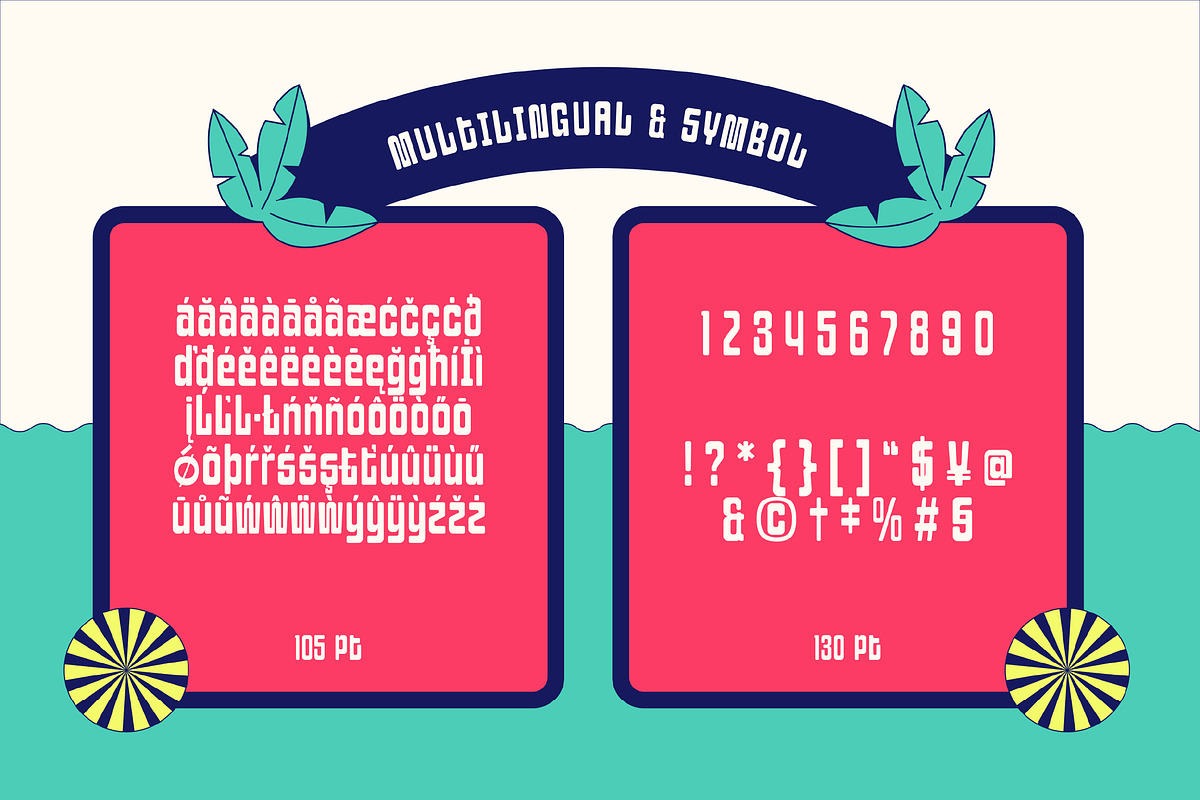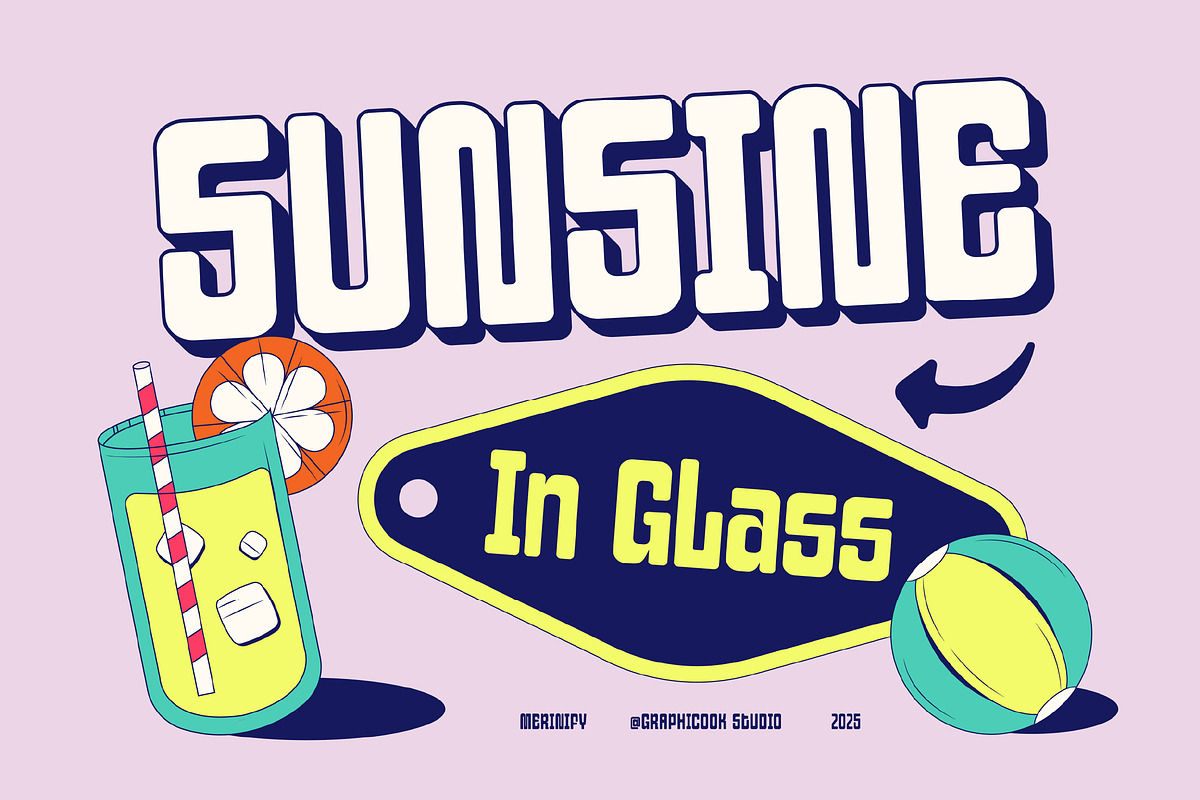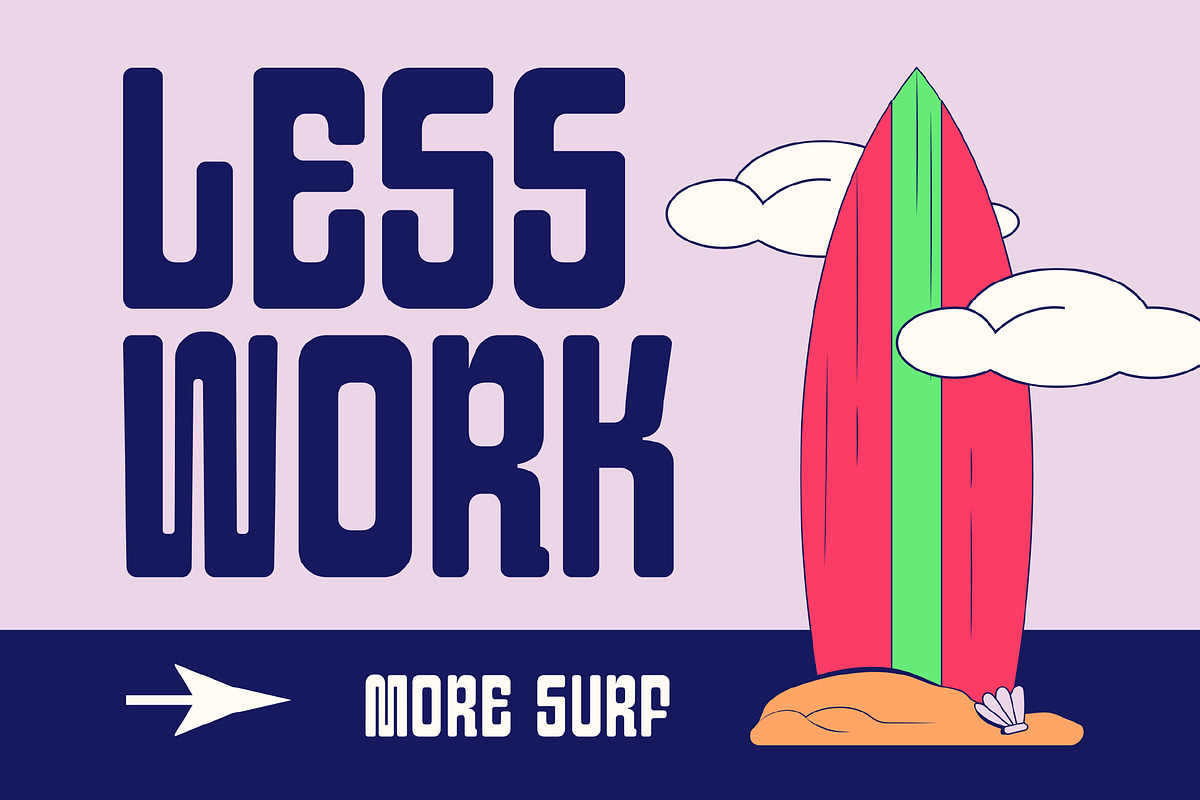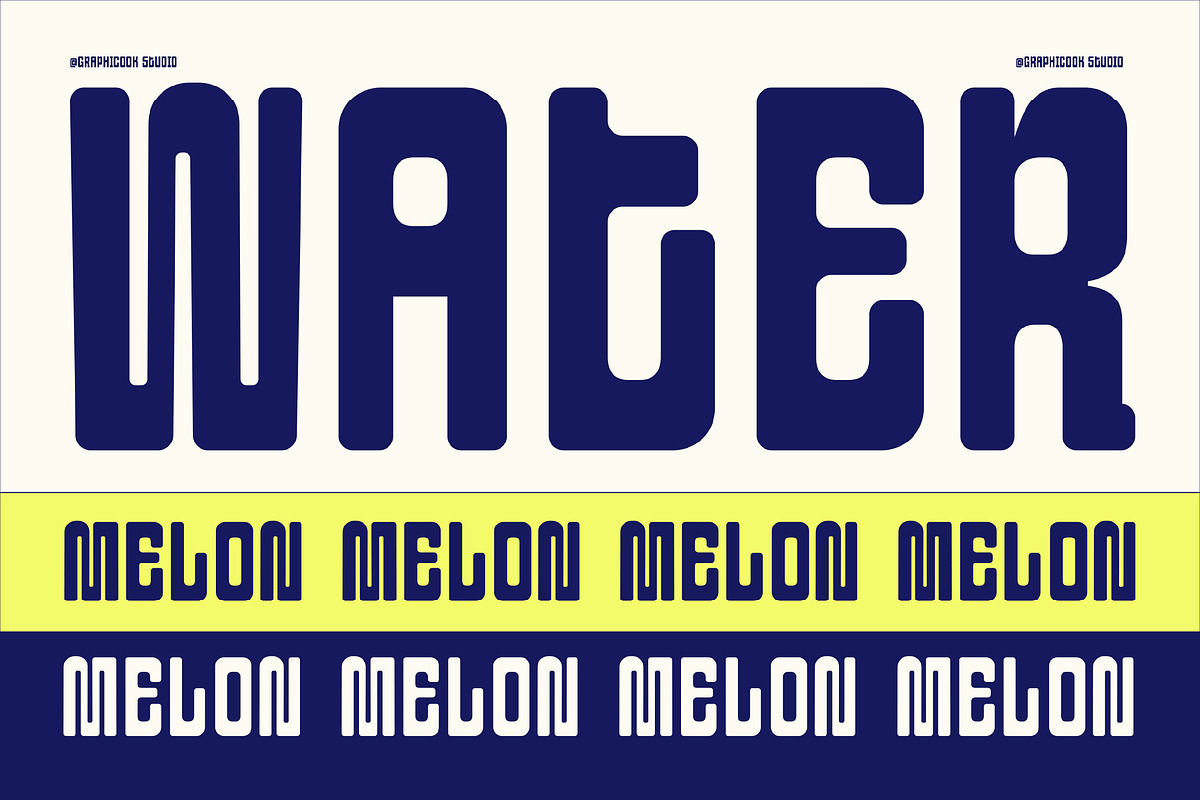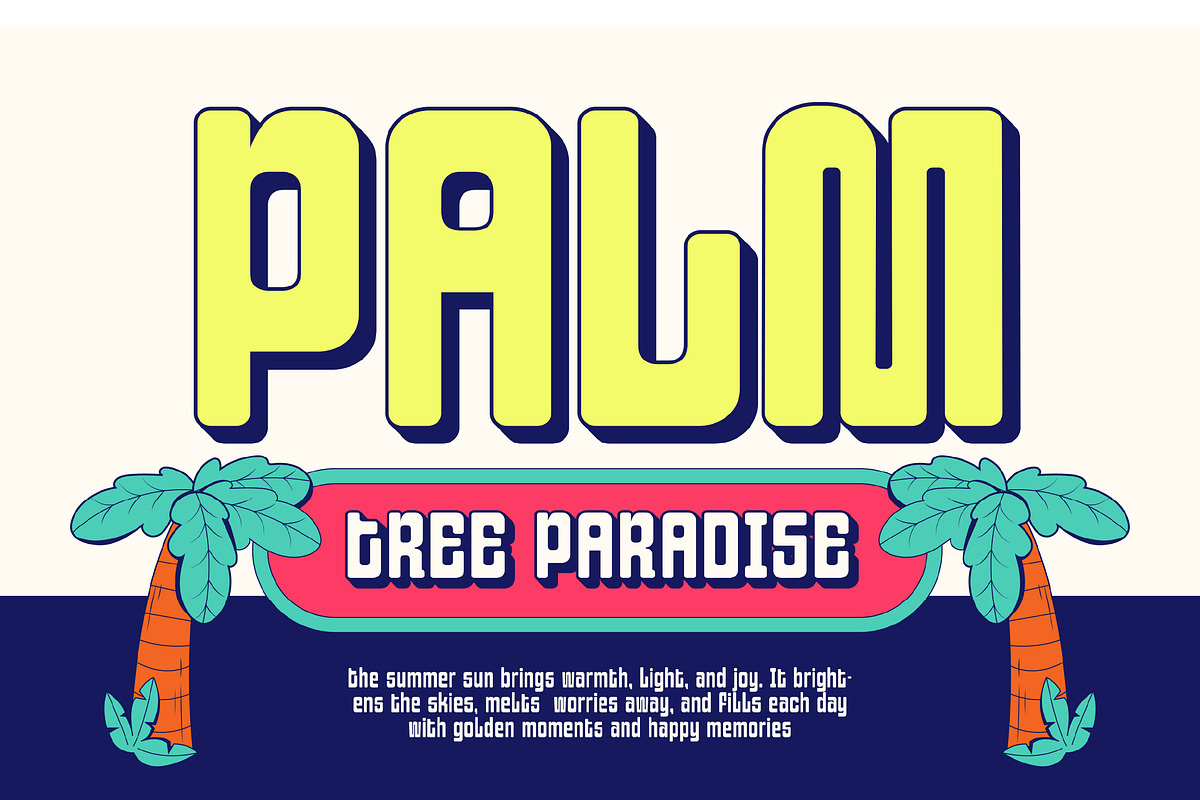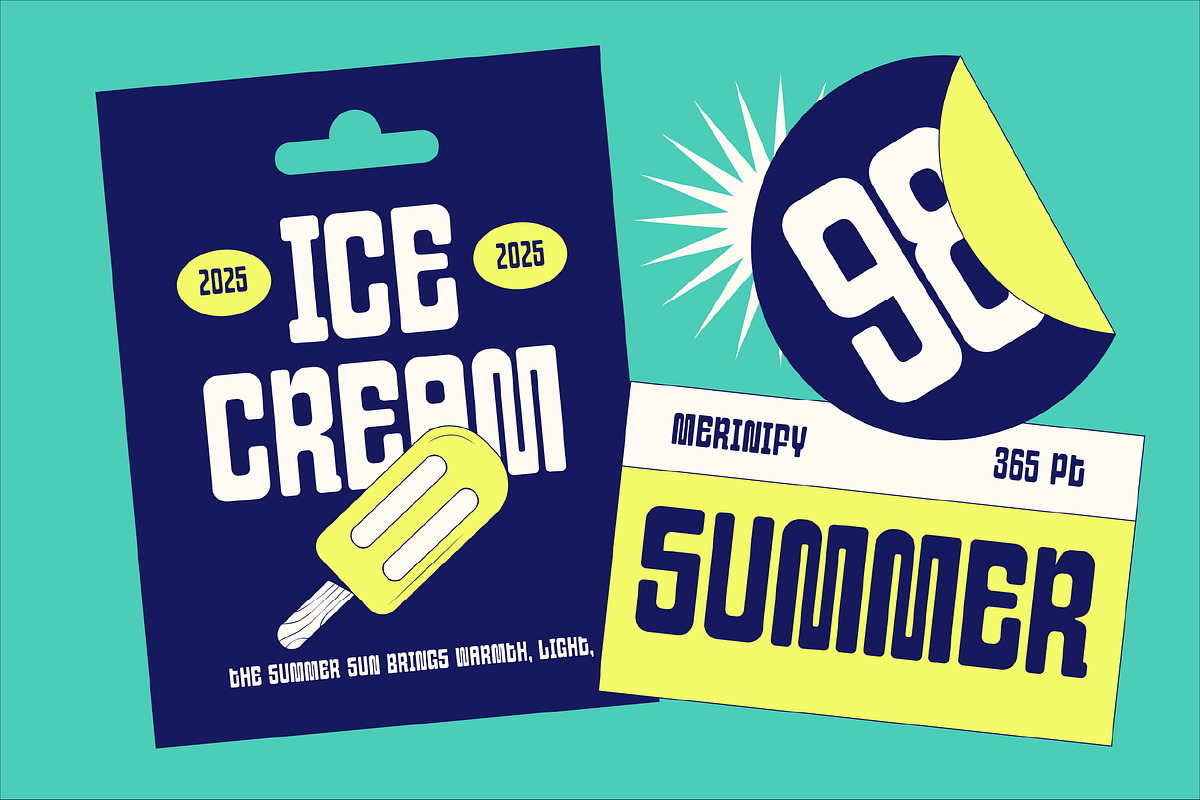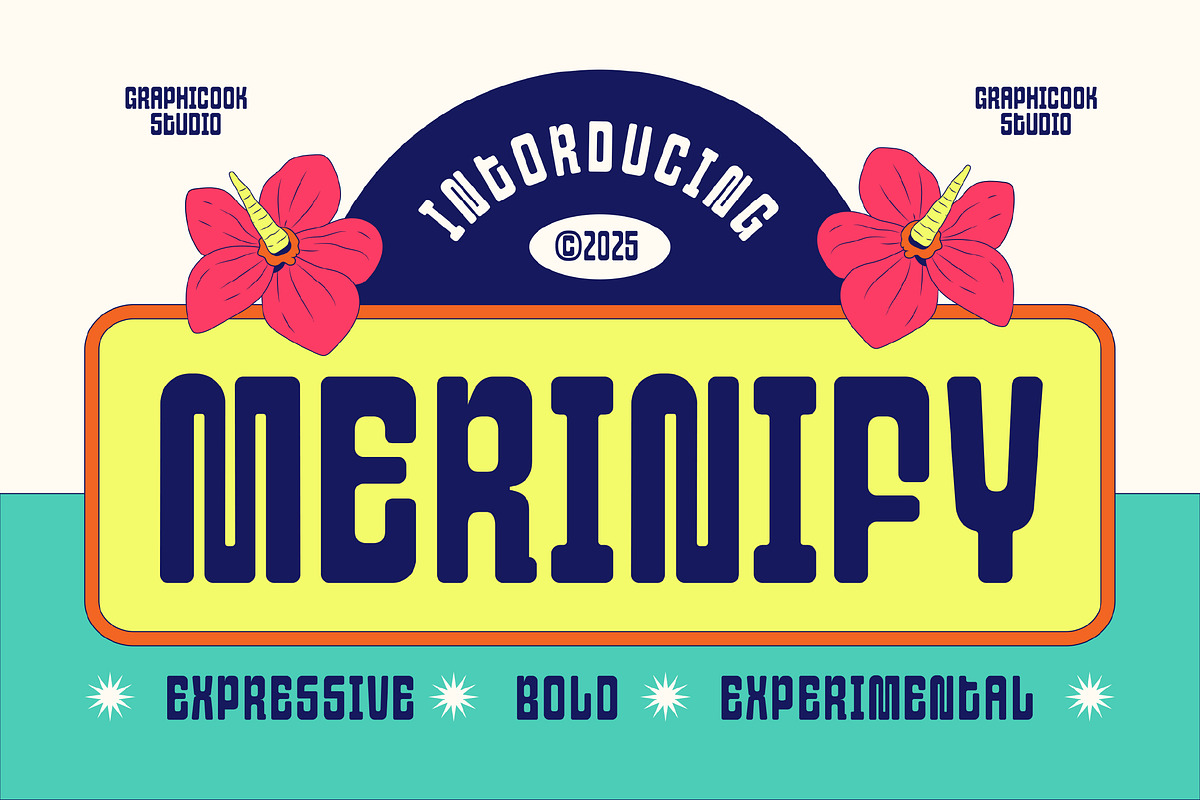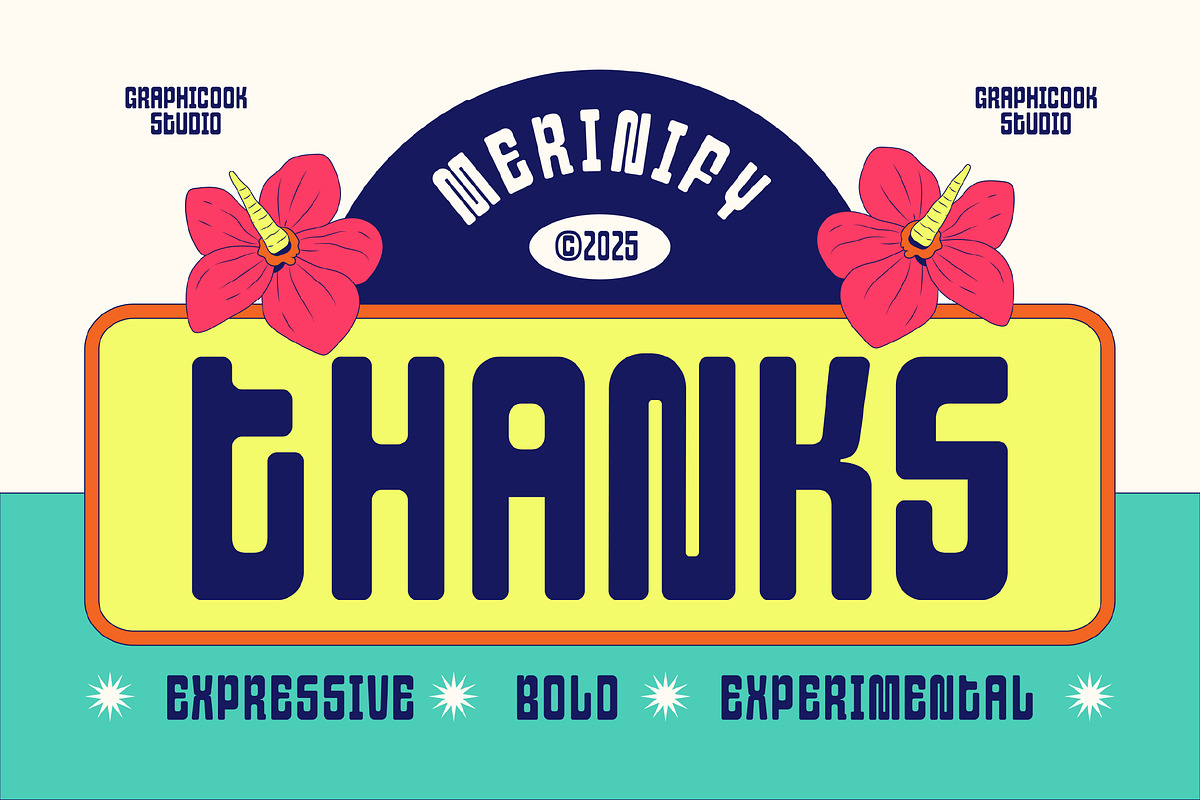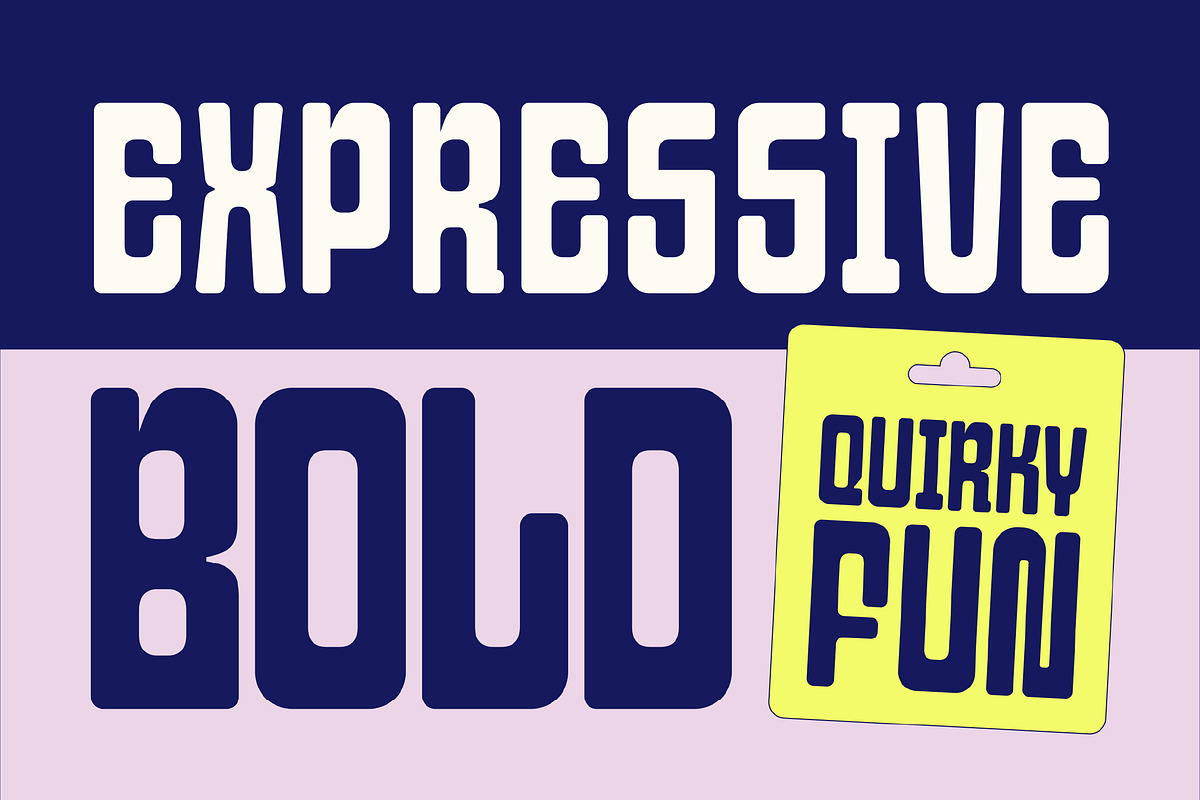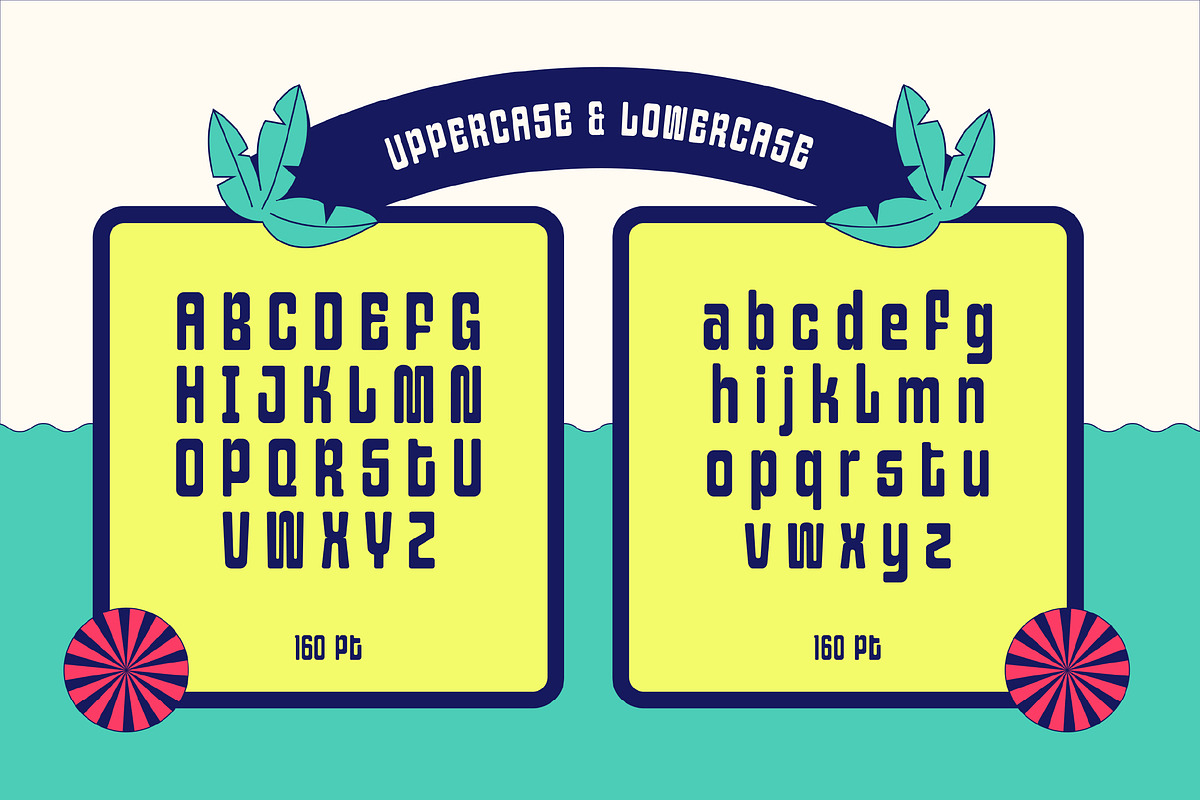
Merinify
Merinify is an experimental font with a uniquely expressive style, suitable for festivals, logos, headlines, or summer-themed visuals that aim to be vibrant and bold.
It is perfect for headlines, logotypes, magazines, packaging, quotes, movies, games, cover albums, book covers, and flyers, it's a perfect solution for creating eye-catching designs that stand out in any context.